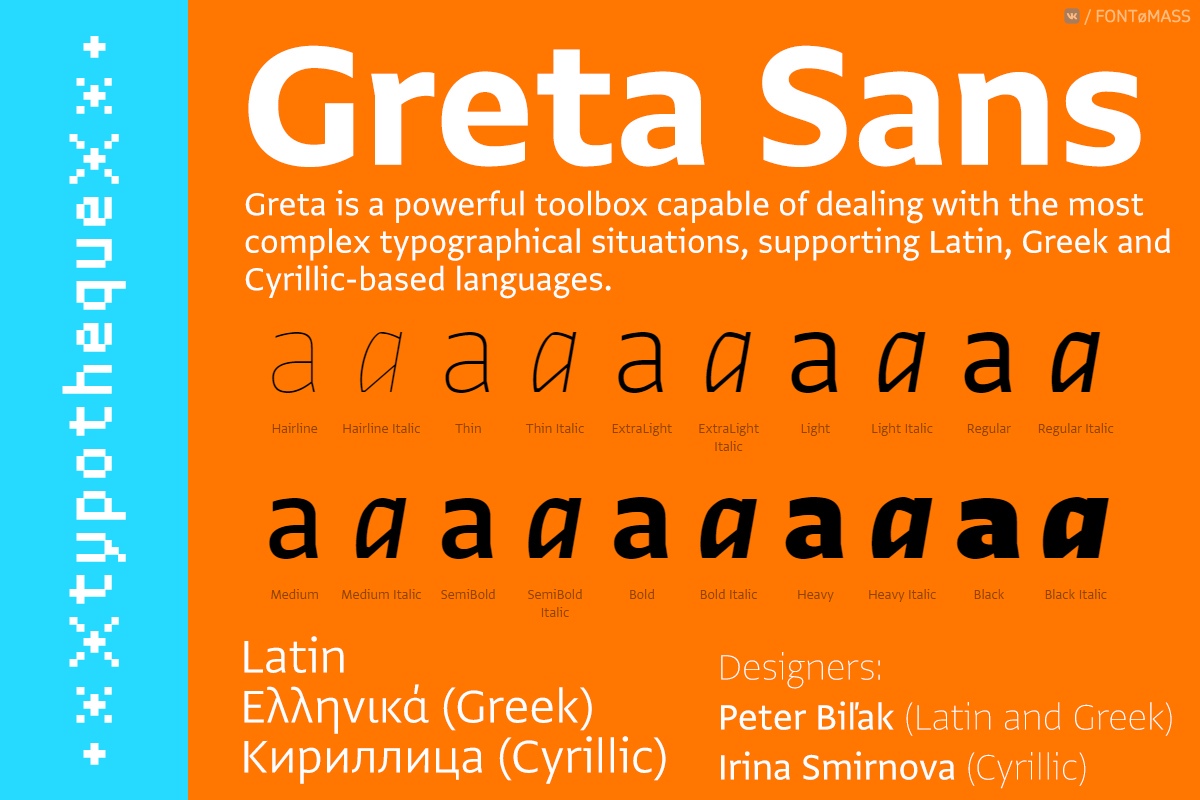
Greta Sans Pro Suite Font
Greta Sans Pro Suite Font is perfect for comprehensive brand systems, professional corporate identities, editorial publishing projects, sophisticated web typography, international communications, systematic design applications, premium documentation, and versatile advertising campaigns. This complete typeface collection works exceptionally well in both digital applications and print media where systematic excellence and professional versatility are fundamental design requirements.
What makes Greta Sans Pro Suite Font so exciting is its masterful interpretation of contemporary sans-serif design through a comprehensive family of letterforms that provides complete typographic solutions for complex professional communications. The font features sophisticated characters with systematic proportions, professional spacing, and refined details that communicate reliability, international appeal, and the comprehensive approach necessary for successful global brand communications. Its versatile personality and professional heritage make it ideal for organizations seeking complete typographic systems while appealing to international audiences who value systematic design and professional quality across diverse applications.
The Greta Sans Pro Suite Font family includes extensive weight variations from hairline to black, along with matching italic styles, condensed versions, and systematic alternates. Each style maintains the typeface's professional character while offering comprehensive multilingual support, international numerals, global punctuation marks, and special characters designed to enhance professional communications and systematic branding efforts across worldwide markets and diverse cultural contexts.
This extraordinary typeface collection represents the perfect evolution of systematic typography optimized for contemporary global communications and professional brand systems. Whether you're developing international corporate identities, creating comprehensive publishing systems, or designing multi-platform brand guidelines, Greta Sans Pro Suite Font Free Download delivers the systematic excellence and versatility needed for successful professional communications worldwide. The font's comprehensive approach makes it particularly effective for multinational corporations, publishing houses, design agencies, and organizations requiring complete typographic solutions for complex global communications.
The meticulously engineered systematic construction and optimized international performance in Greta Sans Pro Suite Font ensure exceptional consistency while maintaining distinctive professional character across all global applications. Its comprehensive versatility allows seamless coordination between different family members within complex projects, making it an invaluable foundation for complete brand systems requiring both systematic reliability and professional sophistication for international audiences.